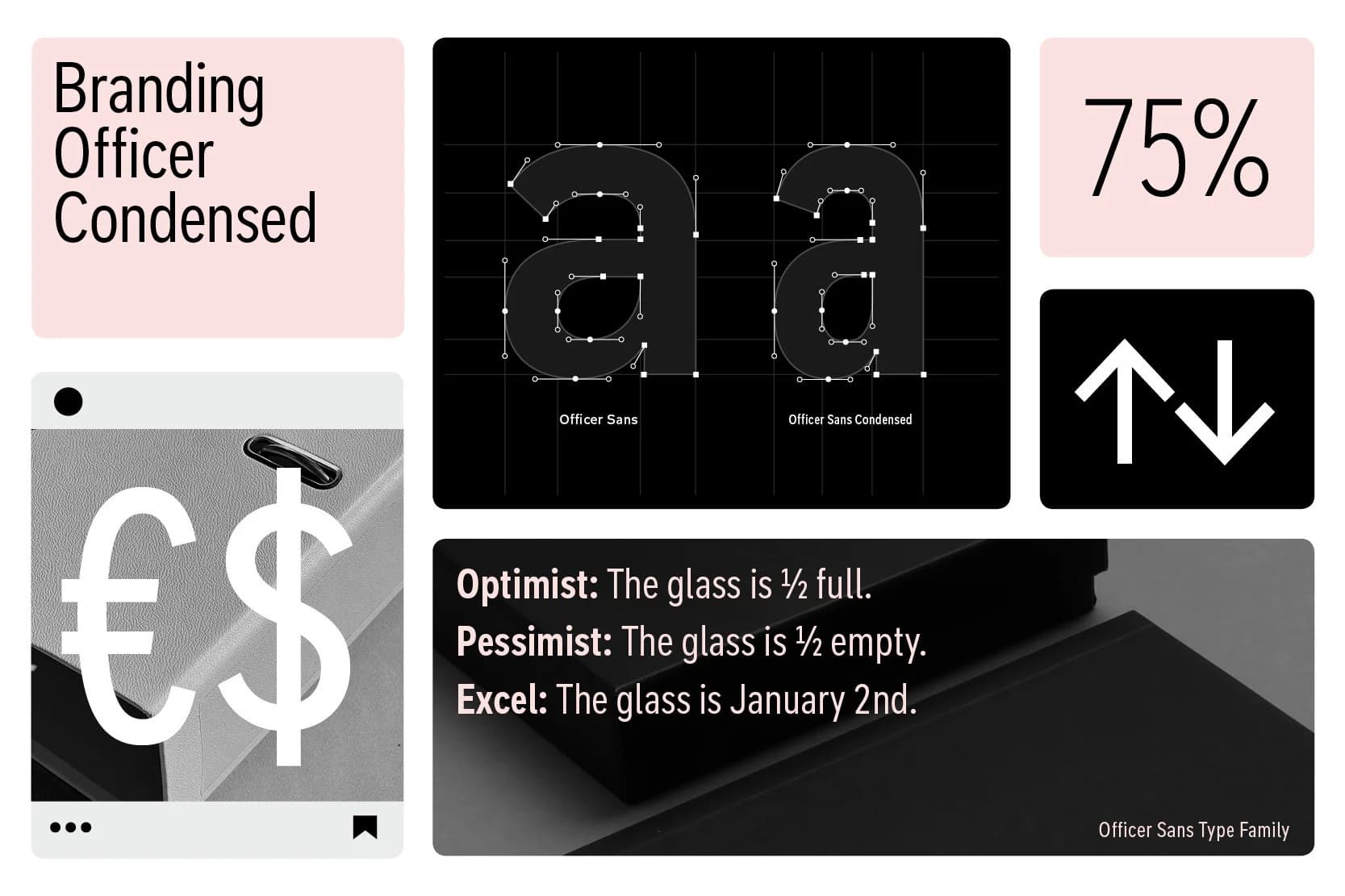
Officer Sans Condensed
A condensed sans-serif from HvD Fonts in a grotesque tradition, suited to tight measures and display settings.
Officer Sans Condensed is a narrow sans from HvD Fonts, part of what appears to be a wider Officer Sans family. Condensed grotesques of this kind typically serve editorial, signage and display work where horizontal space is at a premium. Further details on weights, italics and language support were unavailable at time of writing.
The name and condensed designation strongly suggest a tight, upright grotesque or gothic sans; classified as condensed grotesque pending confirmation of full design details.